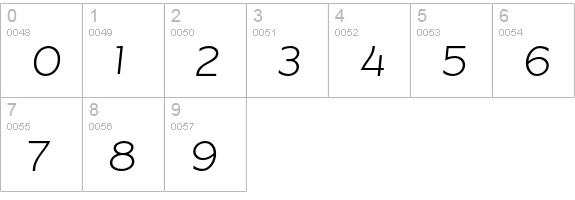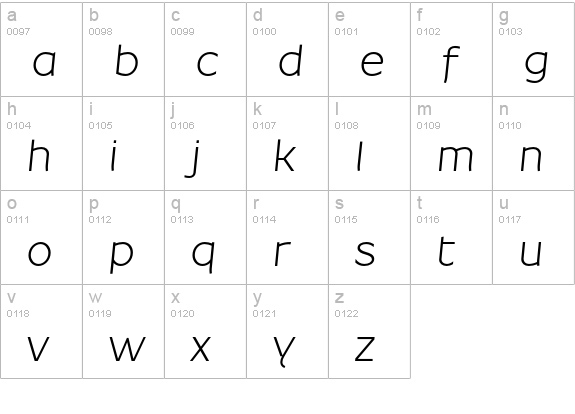
Resamitz Italic Font Details
Resamitz Italic is a distinctive, italic variant in the Resamitz typeface family \xE2\x80\x94 well suited to design and typography projects.
Resamitz Italic is a stunningly elegant font that effortlessly combines modern sophistication with timeless classic appeal. Its delicate and graceful letterforms exude a sense of refined beauty, making it the perfect choice for projects that require a touch of elegance and finesse. With its stylish slanted design, Resamitz Italic adds a dynamic and dynamic flair to any text, making it stand out on both digital and print platforms. Whether used for headlines, titles, or body text, this font captures attention and creates a lasting impression. But what sets Resamitz Italic apart is not just its aesthetic charm, but also its accessibility. This incredible font is available for free, allowing designers, artists, and enthusiasts to freely incorporate it into their creative endeavors without any limitations or costs. To download Resamitz Italic, simply visit FontsMarket.com, a trusted source for high-quality fonts. There, you will find this exquisite font ready to be downloaded and used in your projects. Its versatility, combined with the freedom to use it without any restrictions, makes Resamitz Italic a valuable addition to any font collection. Whether you're designing a logo, creating a poster, or working on a branding project, Resamitz Italic is a font that will elevate your work to new heights. Its timeless appeal, coupled with its availability as a free download, makes it an essential tool for any designer looking to make a lasting impression. Explore the possibilities and let Resamitz Italic bring your designs to life.